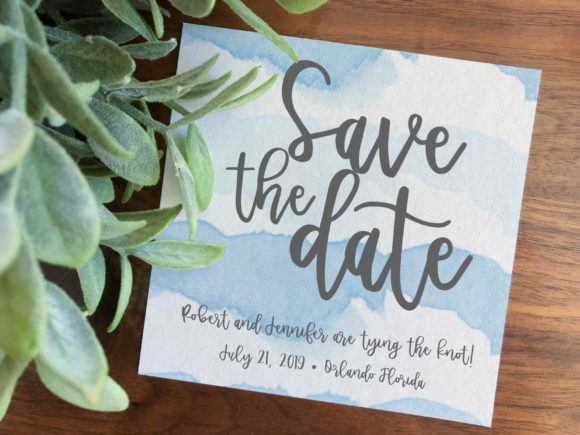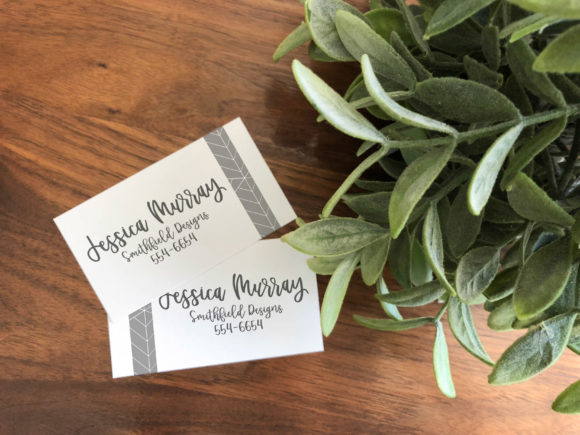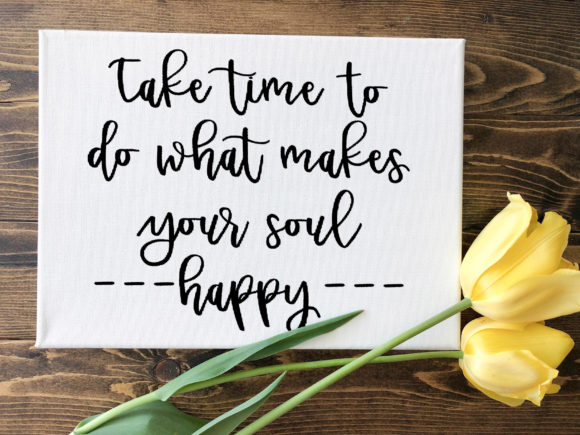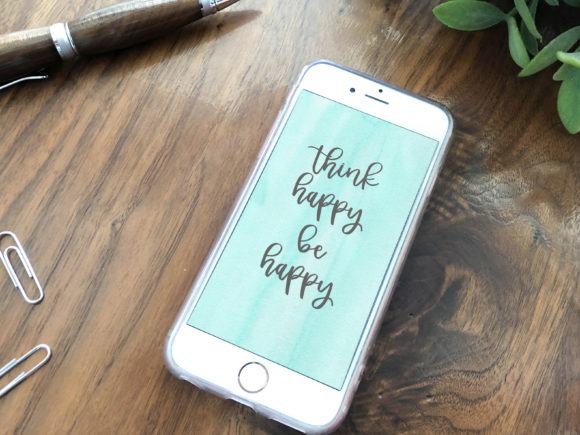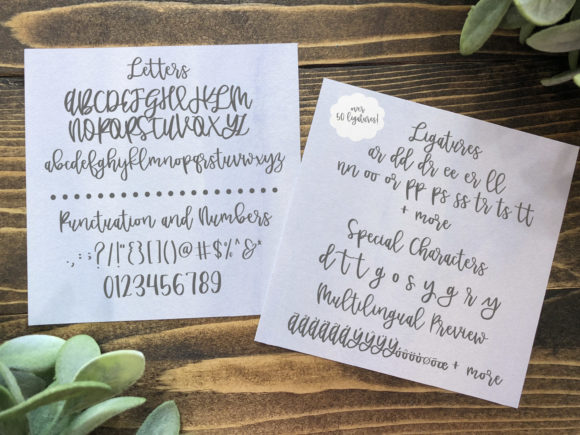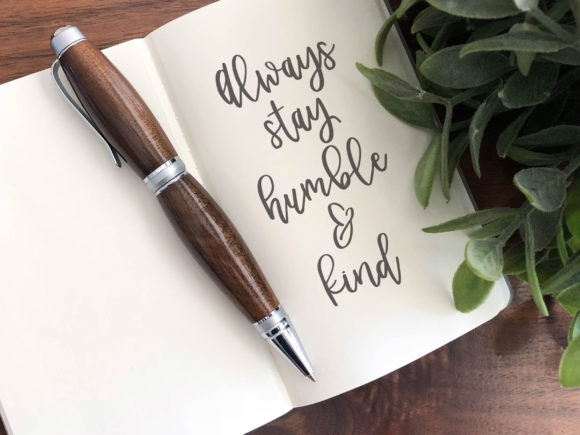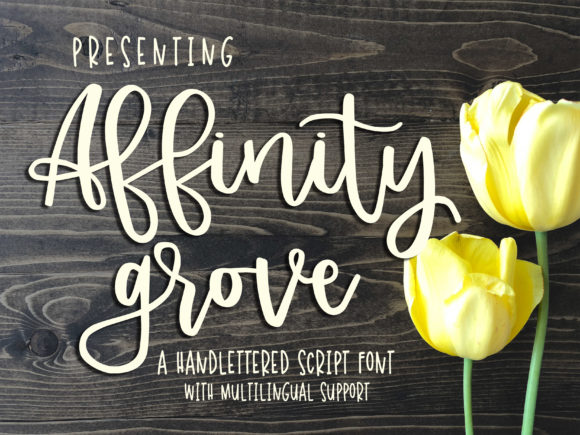
Affinity Grove Font: Elevate Your Designs with Elegance and Sophistication
Are you a designer or crafter looking for a unique and versatile font to add a touch of elegance to your creations? Look no further than the Affinity Grove Font. This stunning signature font is designed to help you create beautiful and sophisticated designs with ease. In this article, we’ll explore the features and benefits of Affinity Grove, and how it can elevate your designs to the next level.
What is Affinity Grove Font?
Affinity Grove script is a signature font that contains a variety of ligatures, stylistic alternates, and end/initial characters to easily add accents to your designs. This font is perfect for designers and crafters who want to create custom designs that stand out from the crowd. With Affinity Grove, you can add a touch of sophistication and elegance to your projects, making them truly unforgettable.
Key Features of Affinity Grove Font
• Ligatures: Affinity Grove font comes with a range of ligatures that allow you to connect letters and create a flowing, cursive effect. This feature is perfect for creating beautiful headings, titles, and quotes.
• Stylistic Alternates: The font also includes stylistic alternates, which provide you with different versions of letters and characters to mix and match. This feature allows you to add visual interest and variety to your designs.
• End/Initial Characters: Affinity Grove font includes end and initial characters that enable you to add accents and flourishes to your designs. These characters can be used to create beautiful swashes, tails, and other decorative elements.
Benefits of Using Affinity Grove Font
So, why should you choose Affinity Grove font for your designs? Here are just a few benefits of using this amazing font:
• Elegance and Sophistication: Affinity Grove font is designed to add a touch of elegance and sophistication to your designs. Its beautiful ligatures, stylistic alternates, and end/initial characters make it perfect for creating high-end designs that impress.
• Versatility: This font is incredibly versatile, making it suitable for a wide range of design projects, from wedding invitations and stationery to branding and advertising.
• Easy to Use: Affinity Grove font is easy to use, even for designers who are new to working with script fonts. The font comes with a comprehensive user guide, making it simple to get started and create stunning designs.
How to Use Affinity Grove Font in Your Designs
Using Affinity Grove font in your designs is easy. Here are a few tips to get you started:
• Pair it with Other Fonts: Affinity Grove font pairs beautifully with other fonts, making it perfect for creating stunning headings, titles, and body copy.
• Experiment with Ligatures: Don’t be afraid to experiment with the ligatures in Affinity Grove font. They can add a beautiful, flowing effect to your designs.
• Add Accents and Flourishes: Use the end and initial characters in Affinity Grove font to add accents and flourishes to your designs. This can help create a more polished and professional look.
Affinity Grove font is a stunning signature font that can elevate your designs to the next level. With its beautiful ligatures, stylistic alternates, and end/initial characters, this font is perfect for designers and crafters who want to create elegant and sophisticated designs. Whether you’re working on a wedding invitation, branding project, or advertising campaign, Affinity Grove font is sure to impress. So why wait? Download Affinity Grove font today and start creating stunning designs that will leave a lasting impression.